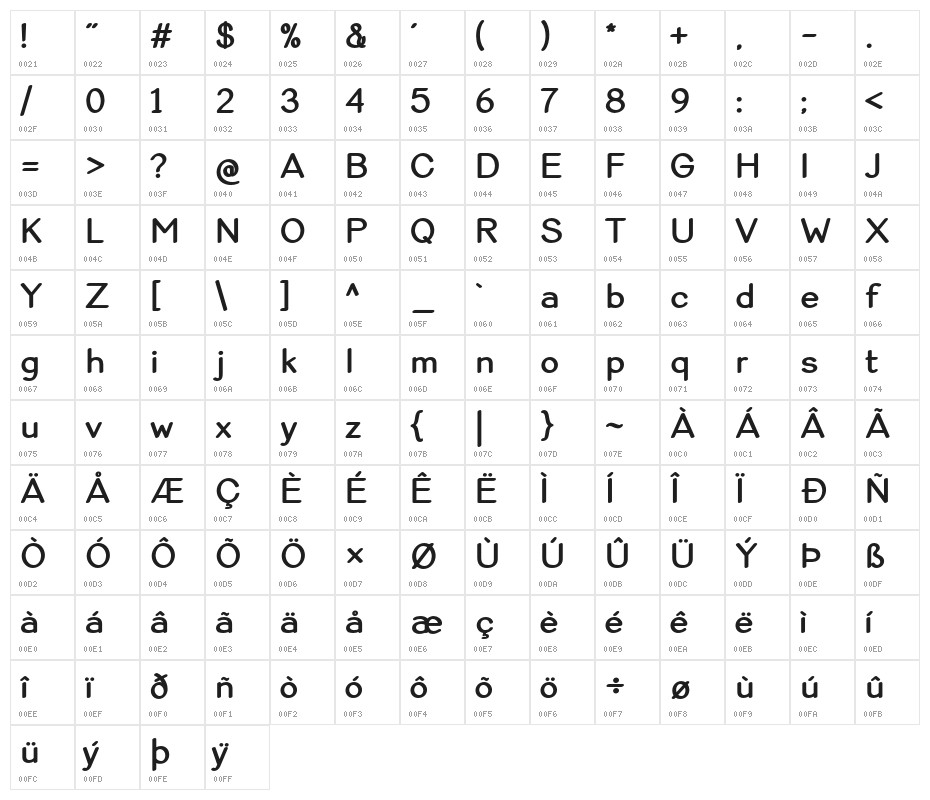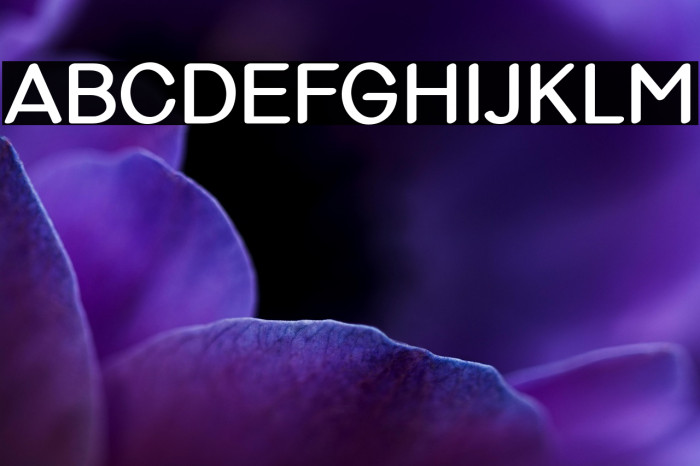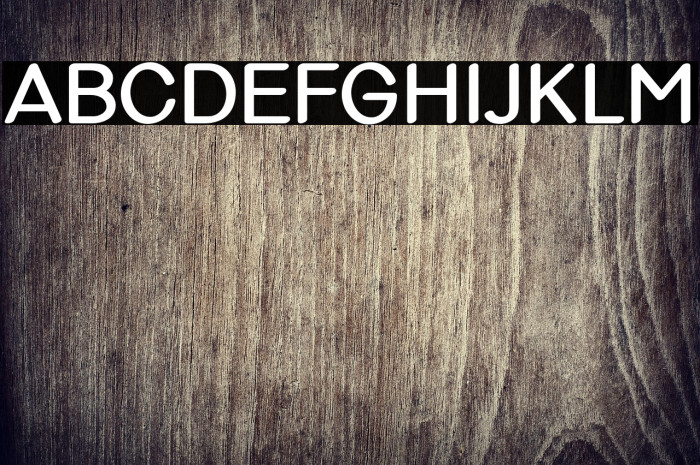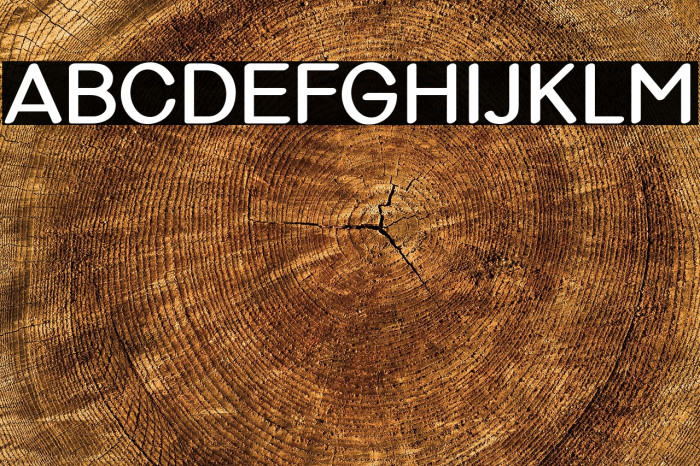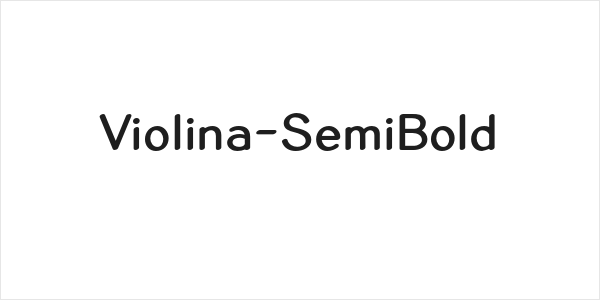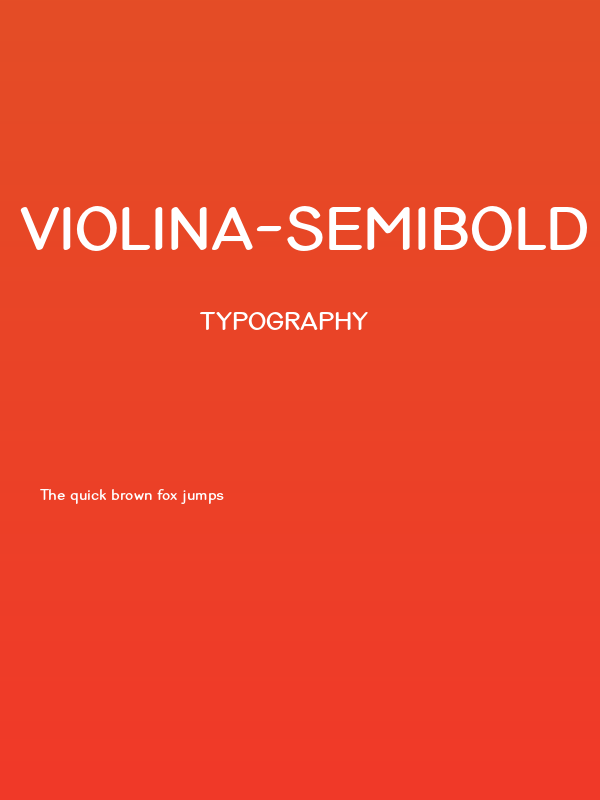
Violina-SemiBold Font
Violina-SemiBold Description
This font features a clean and modern sans-serif style with rounded edges that provide a friendly and approachable appearance. The characters are evenly spaced, ensuring readability and clarity across various sizes. The uppercase letters are bold and assertive, while the lowercase letters maintain a consistent flow with a slightly softer touch. The numerals are clear and distinct, making them suitable for both digital and print formats. Special characters are well-defined, maintaining the overall aesthetic of the font. This font is versatile, suitable for a range of applications from branding to user interfaces.
| Proposed Projects | Ideal for branding, web design, user interfaces, and print materials. |